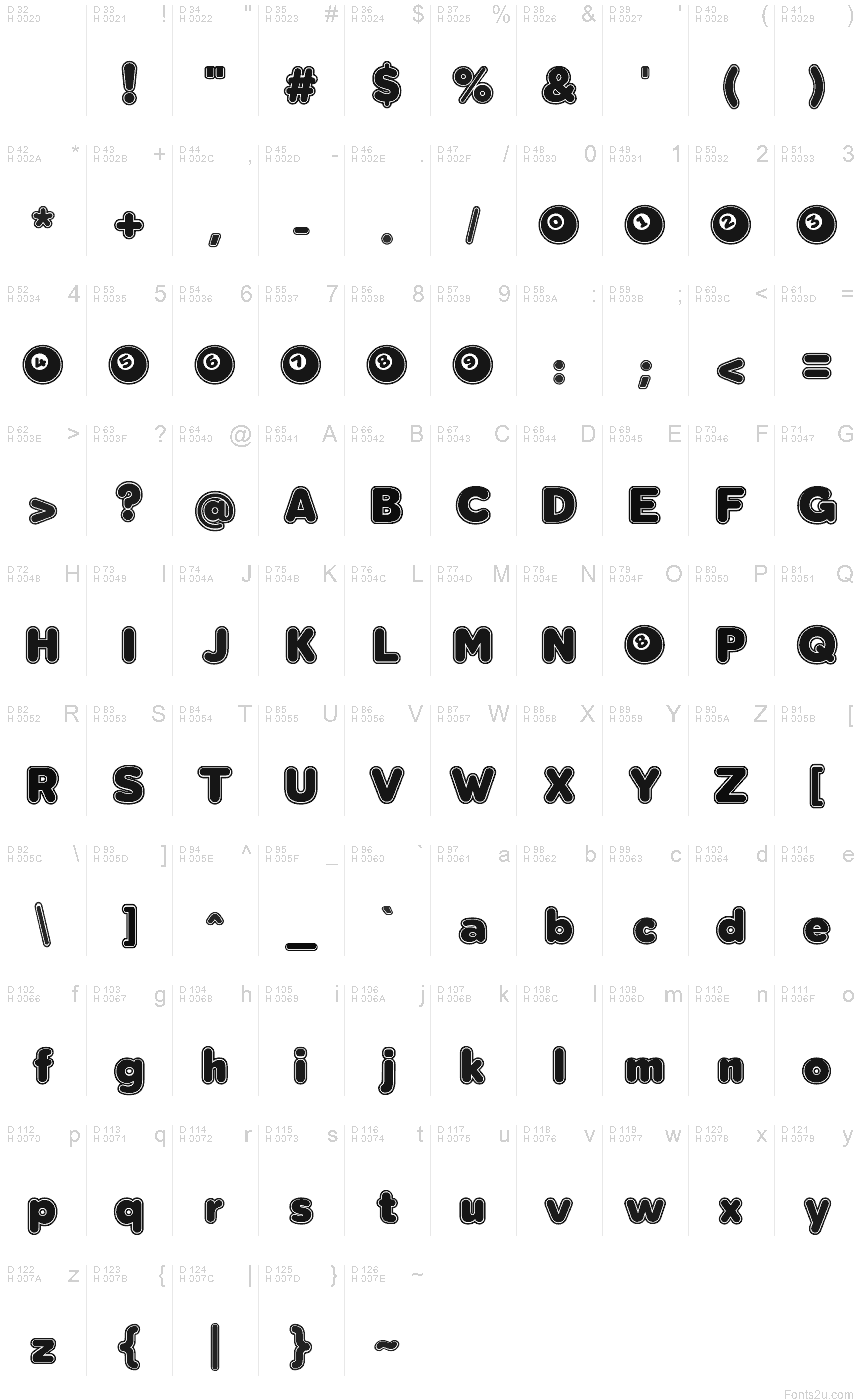
Bola Ocho FFP
Sans serif typography very thick and rounded, university style.
The font has several sets of numbers and monetary symbols.
Including the Bitcoin symbol: b #
Very thick and rounded sans serif typography, university style in regular and italic versions.